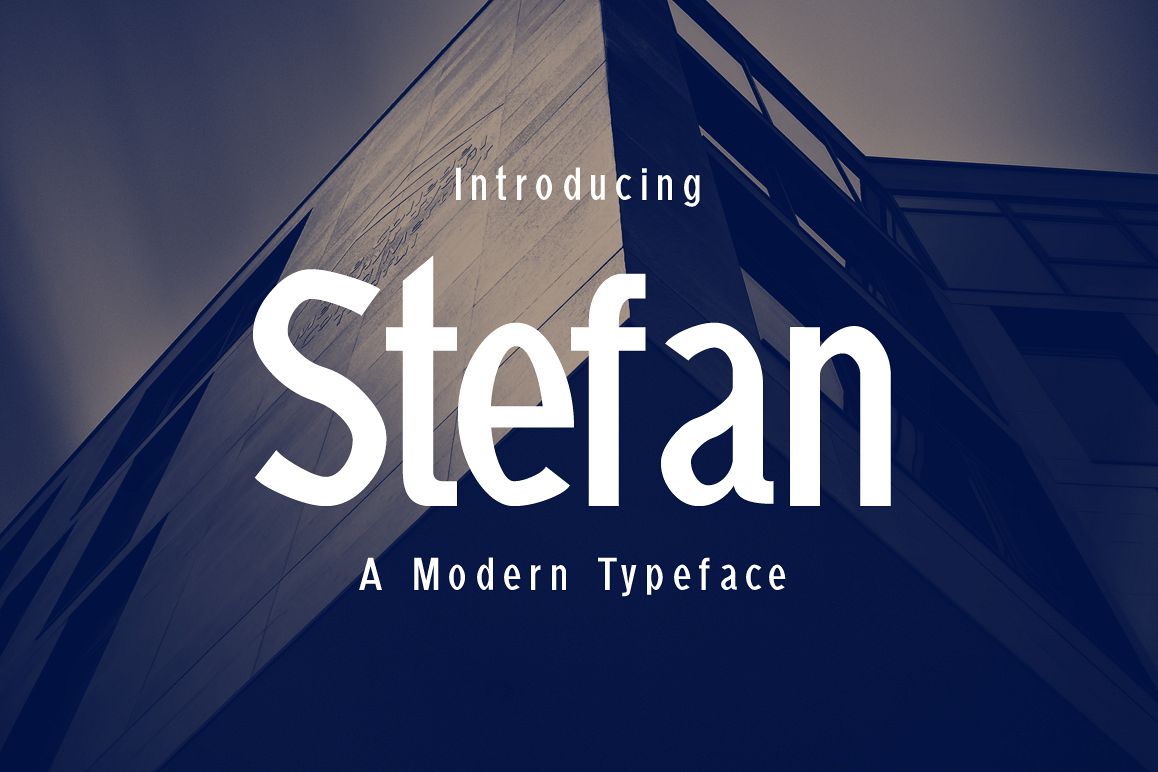
Introducing Stefan!Stefan is a fresh & modern font. Stefan is perfectly suited to stationery, logos, t-shirt, paper, print design, website header, photo frame, flyer, music cover, poster, image slider and much more.Features: